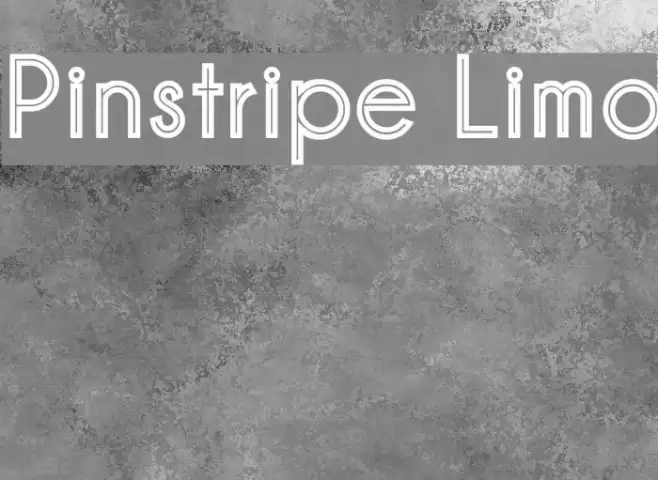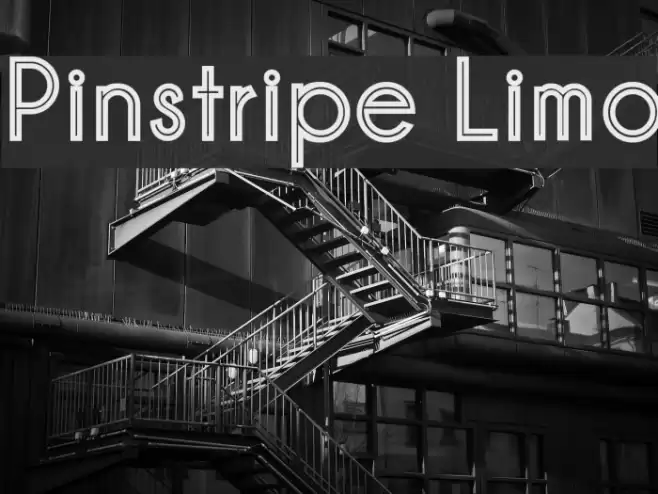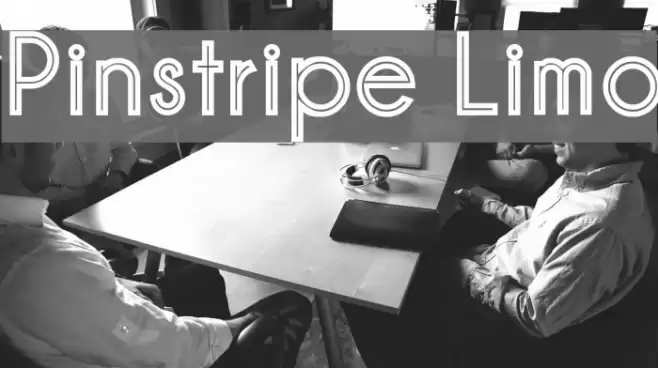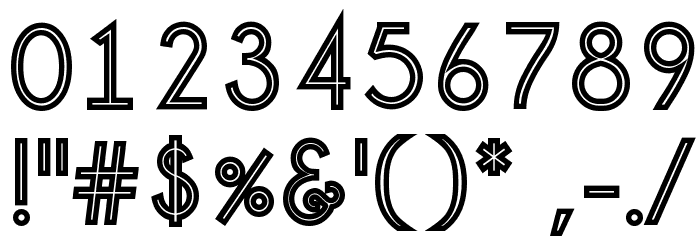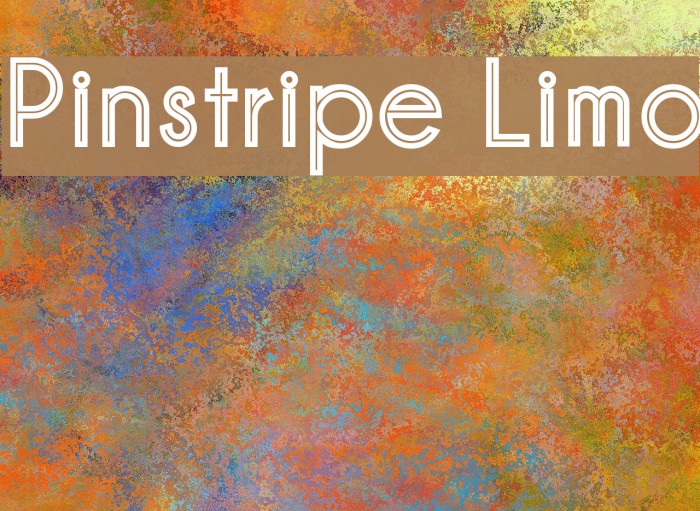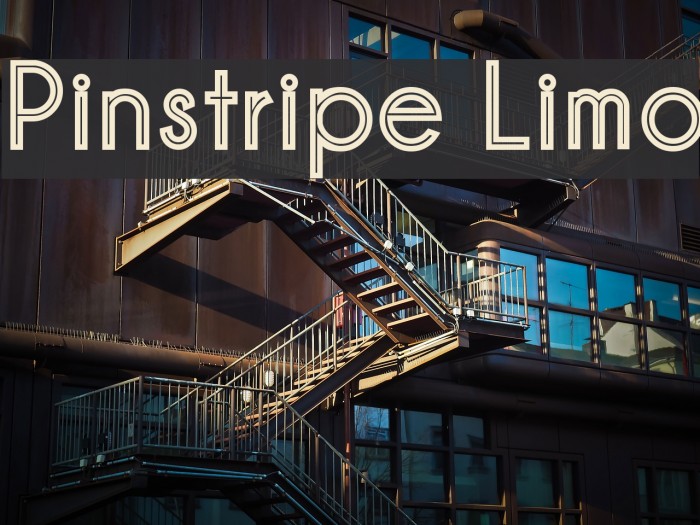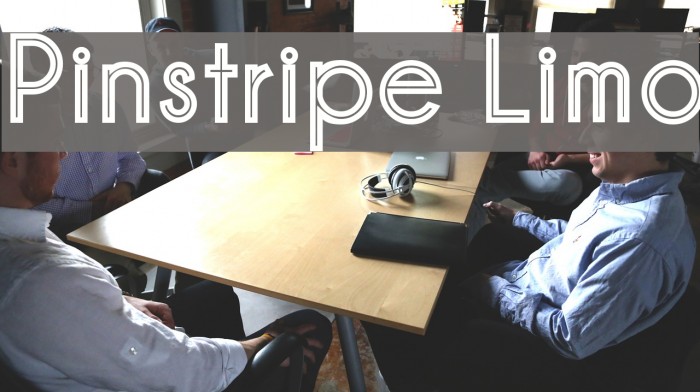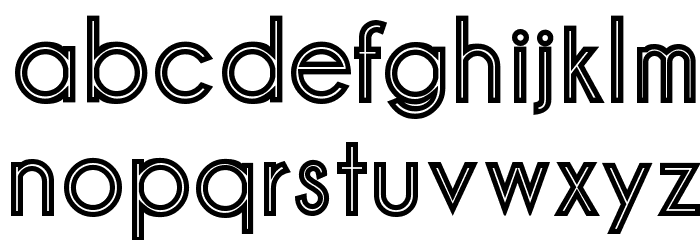
Pinstripe Limo Font
Pinstripe Limo Description
This font features a distinct, modern design with clean lines and a geometric structure. The characters are outlined, creating a pinstripe effect that adds a unique visual interest. The uppercase and lowercase letters maintain a consistent style, with rounded edges and uniform stroke widths. The numerals and special characters follow the same design principles, ensuring cohesion across all elements. This font's open and airy appearance makes it suitable for various design applications where a contemporary and stylish look is desired.
A modern, outlined font with a geometric and clean design from Uncategorized fonts.
- Proposed Projects: Ideal for branding, posters, and editorial design where a modern and stylish aesthetic is needed.